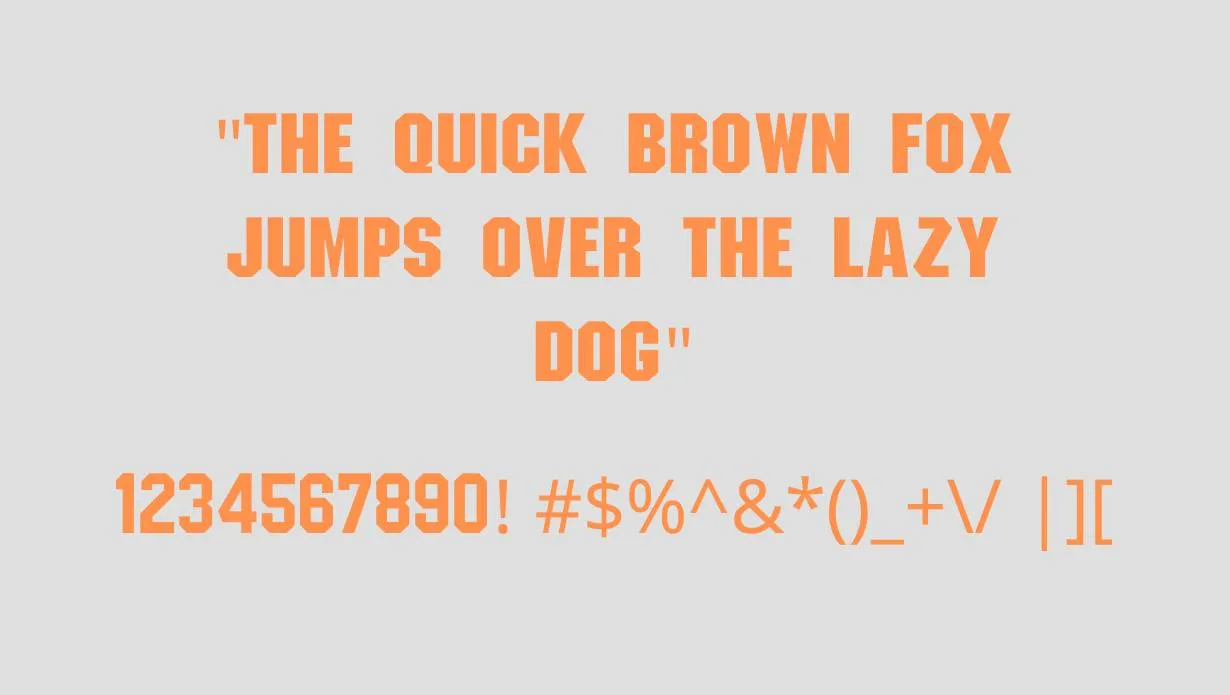
The NFL Dolphins Regular font is closely associated with the Miami Dolphins NFL team and is integral to their branding across merchandise, marketing materials, and fan-related content.
This font’s bold and dynamic style mirrors the energy and strength of the team, contributing to its recognizable and iconic visual identity. When it comes to supporting foreign languages, the typeface family stands out and showcases its true potential when paired with decorative fonts like konnect font.